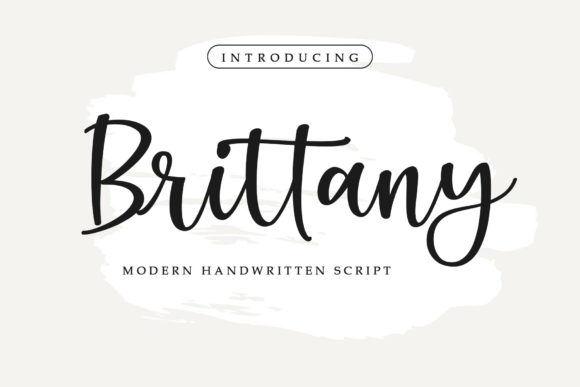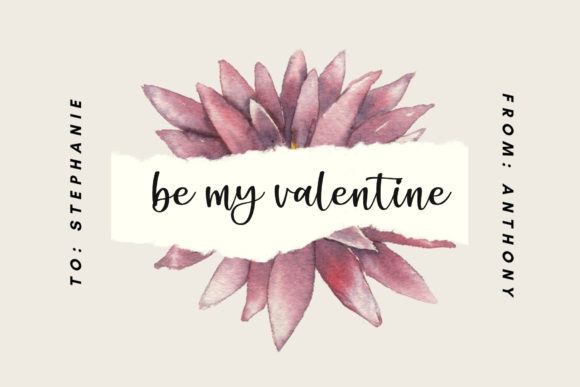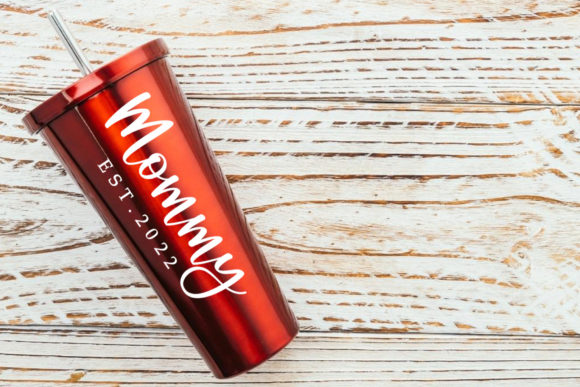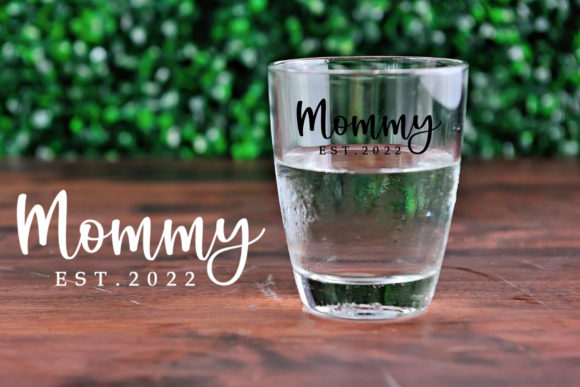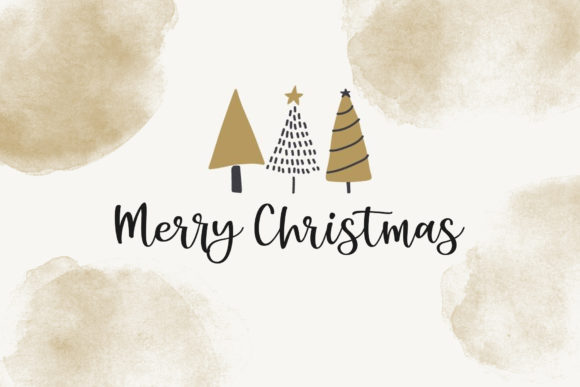
About Brittany Font
Brittany is a sweet, all round and flexible handwritten font. Natural and adaptable, this font will turn each of your project ideas into real works of art. This font is PUA encoded which means you can access all of the glyphs and swashes with ease!Â